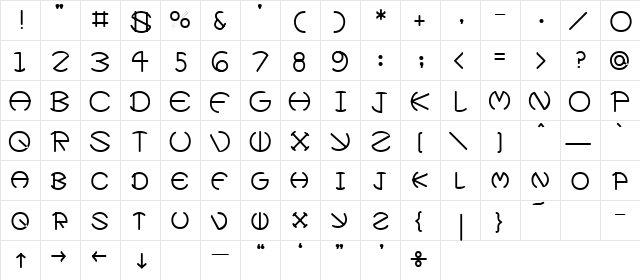
Zirkle Regular
Design Context for Zirkle Typeface
Zirkle offers clean, dependable letterforms without strong stylistic allegiance, making it a practical choice for designers who need flexibility.
Pro Tip: Pair Zirkle with a font of contrasting weight or personality to build a more expressive typographic hierarchy.